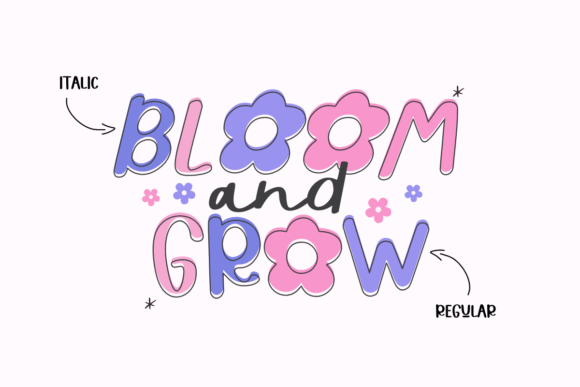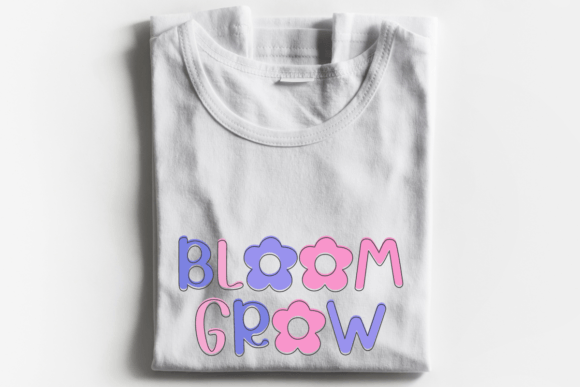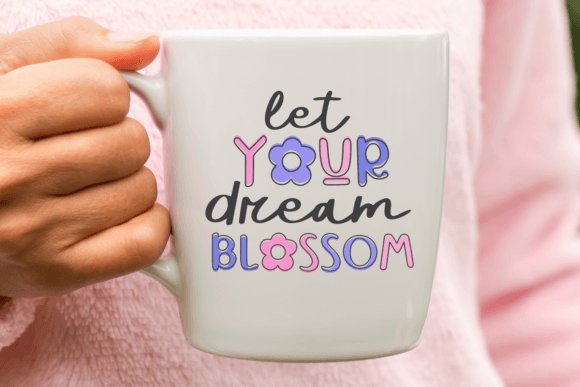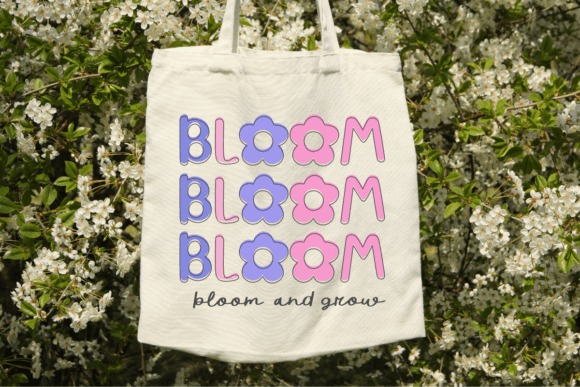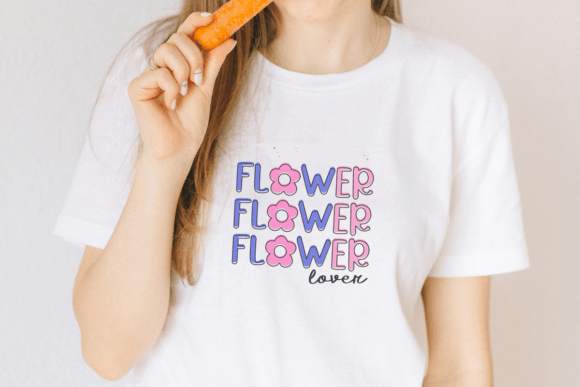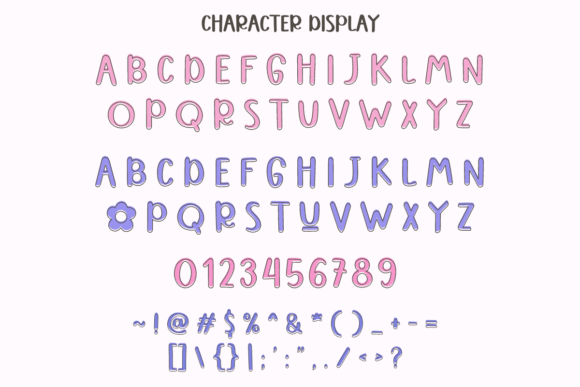
The Blooming Dream Font: A Whimsical Duo for Creative Expression
Have you ever been in the middle of a design project, and suddenly, you’re stuck on finding the perfect font? I recall a recent experience where I was working on a birthday card design, and my client requested a font that was both elegant and playful. After hours of searching, I stumbled upon the Blooming Dream font duo, and it was love at first sight! 💕
The Blooming Dream font duo is a delightful combination of handwritten display and script characters that will add a touch of magic to your designs. With its intoxicating blend of lovable charm and elegant beauty, these fonts effortlessly animate your crafts and breathe a unique air of personalization into t-shirts, birthdays, weddings, and notable occasions, turning them into unforgettable memoirs.
- ✨ Unique and whimsical handwritten style that’s perfect for creative projects
- ✅ Elegant and poised, making it suitable for a wide range of designs, from packaging to greeting cards
- 💫 Universal appeal that will make your designs stand out
- 🎨 Highly versatile and can be used for various design projects, including t-shirts, mugs, and more
While the Blooming Dream font duo is exceptional, there are a few minor quirks to be aware of:
- 🤔 Limited availability of stylistic alternates, but the existing options are still impressive
The Designer Inspiration Behind Blooming Dream
The Blooming Dream font duo was inspired by the beauty of nature and the elegance of handwritten scripts. The designer aimed to create a font that would capture the essence of a whimsical and romantic world, where creativity and imagination know no bounds.
| Font Name | Blooming Dream Font |
| Author | Sakti Avellin |